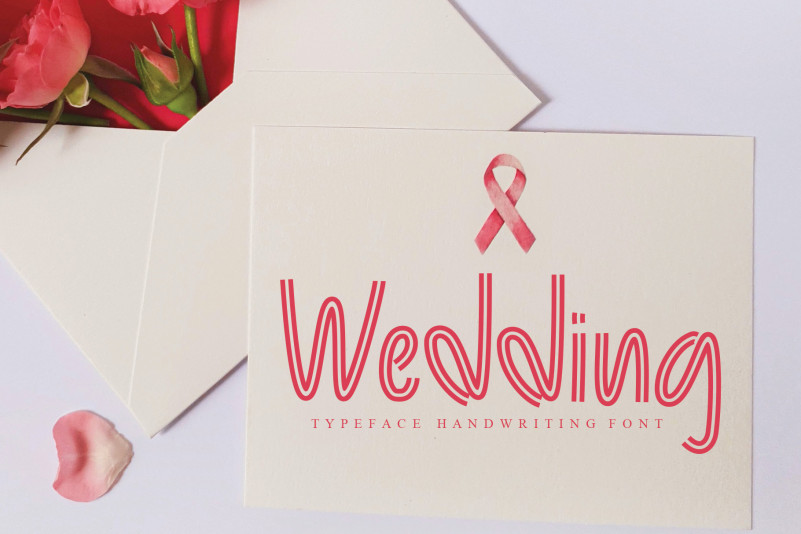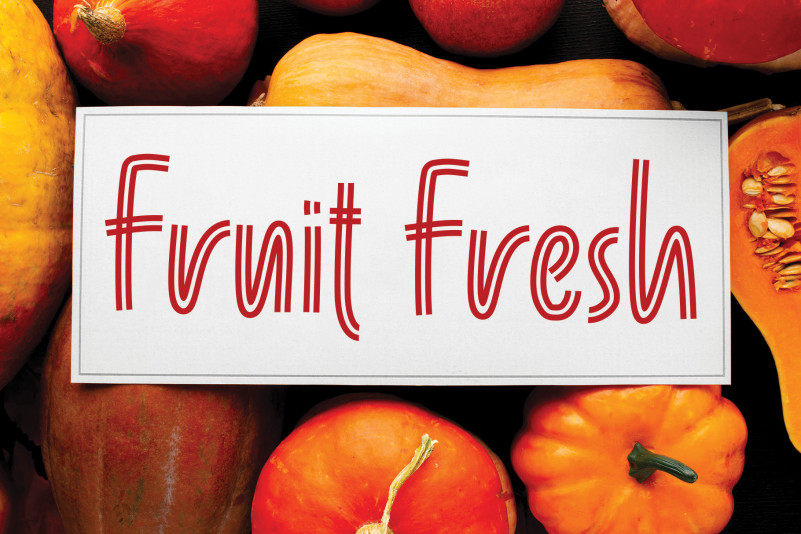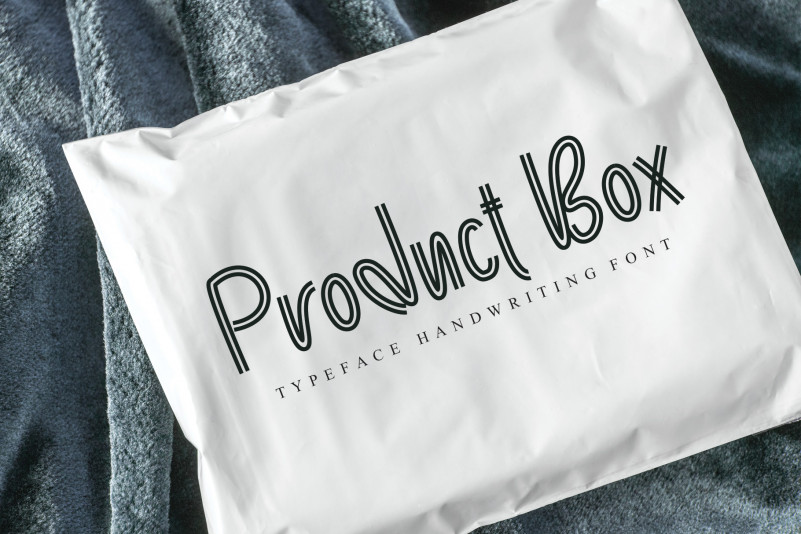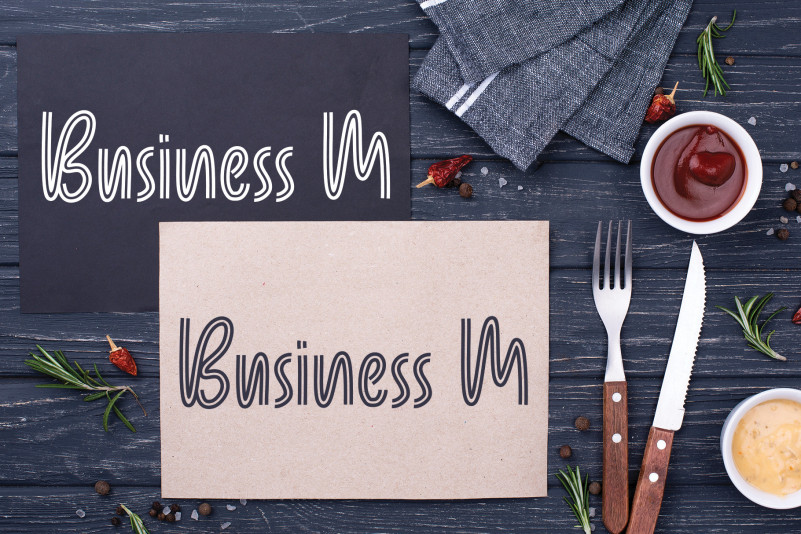
Bullena Display Font
Bullena Display Font is a fun and incredibly unique display font. It is ideal for any informal design that you wish to develop. Let your imagination run free!